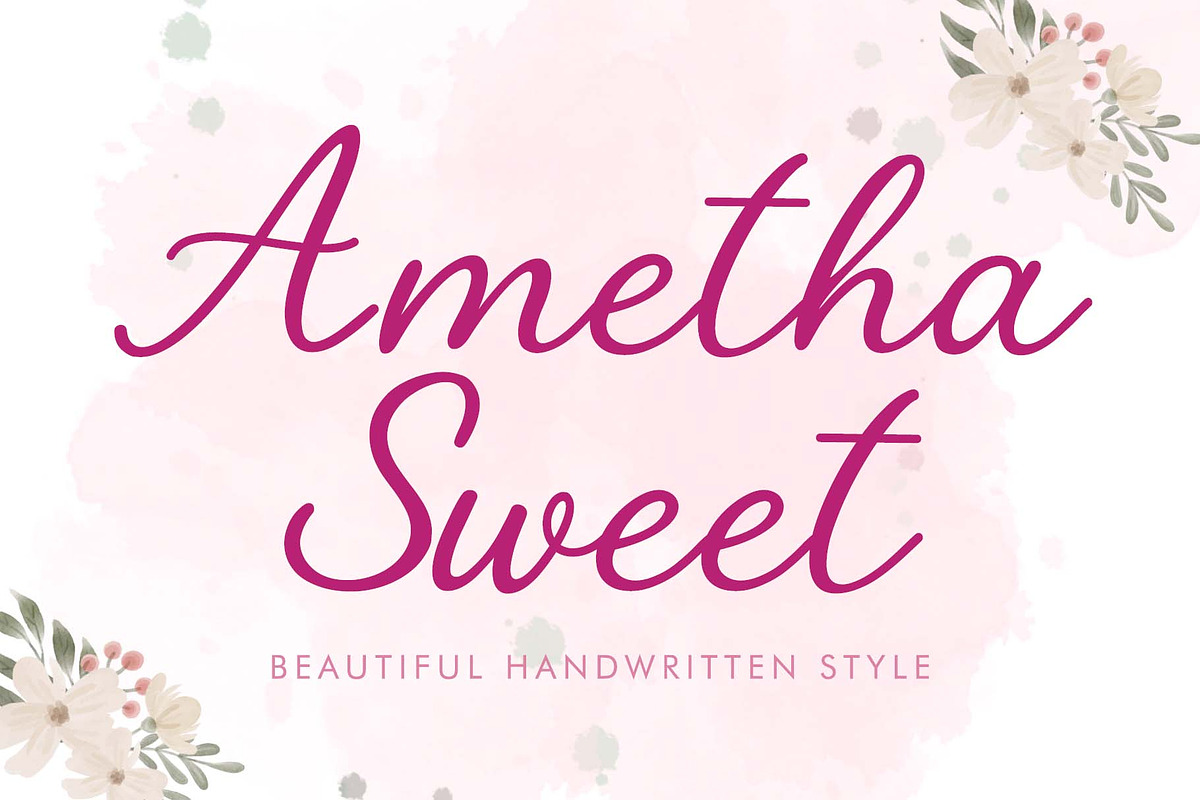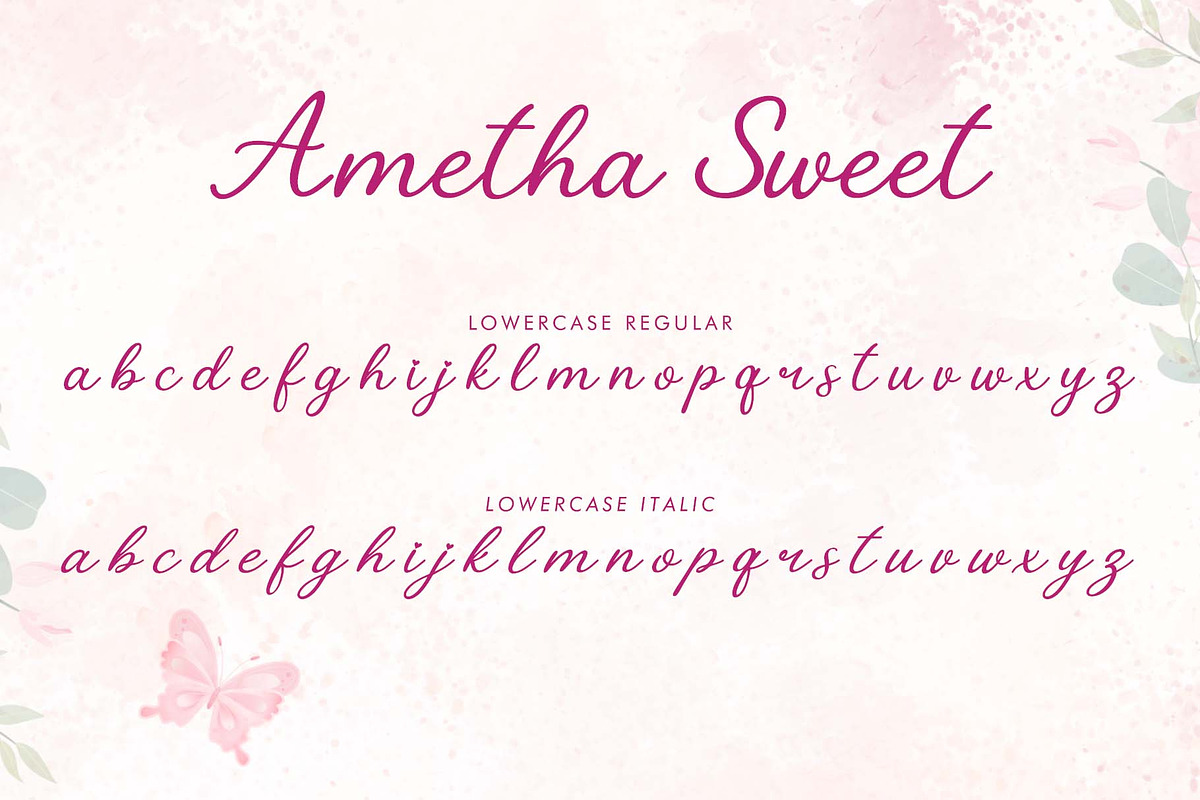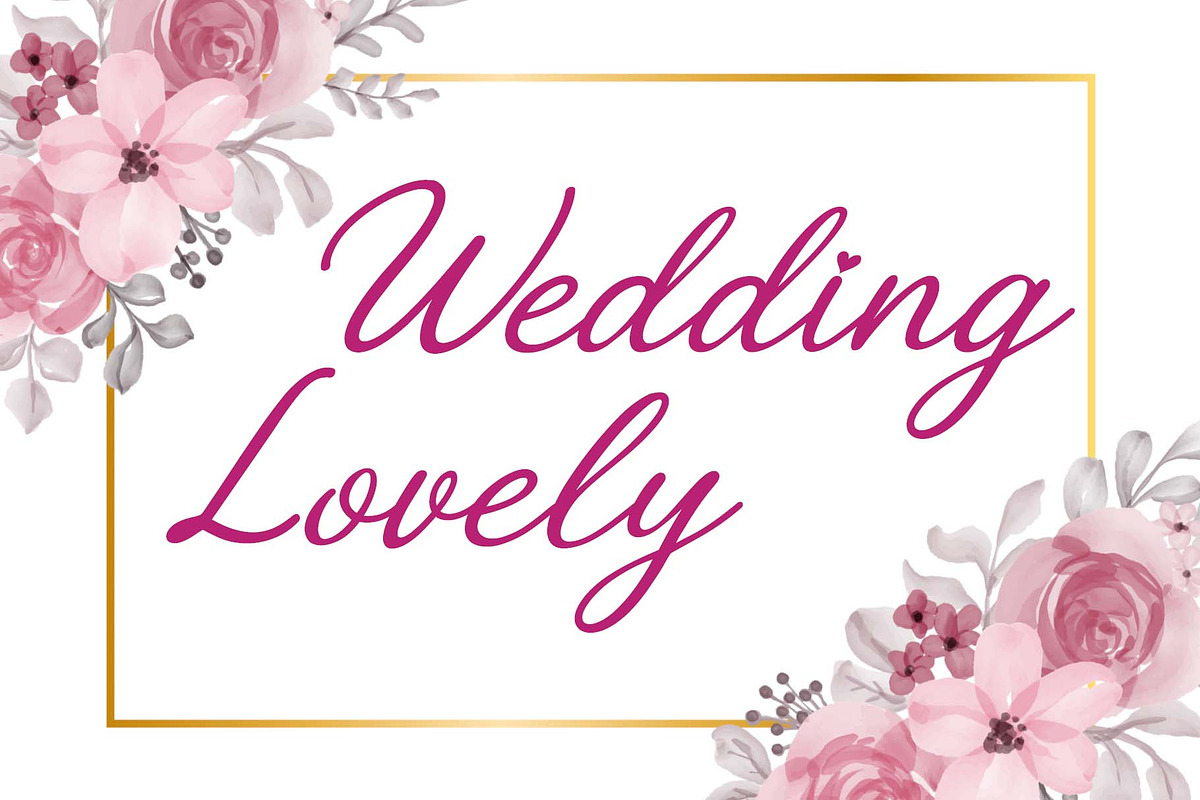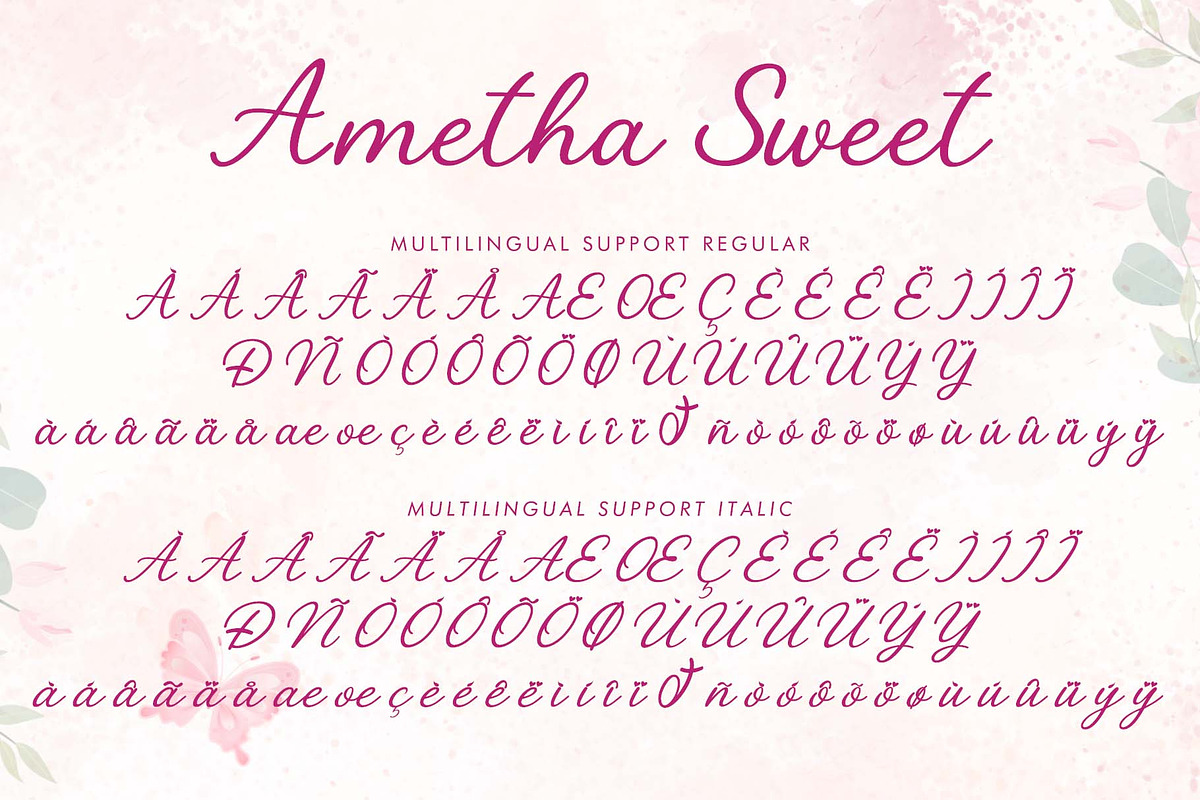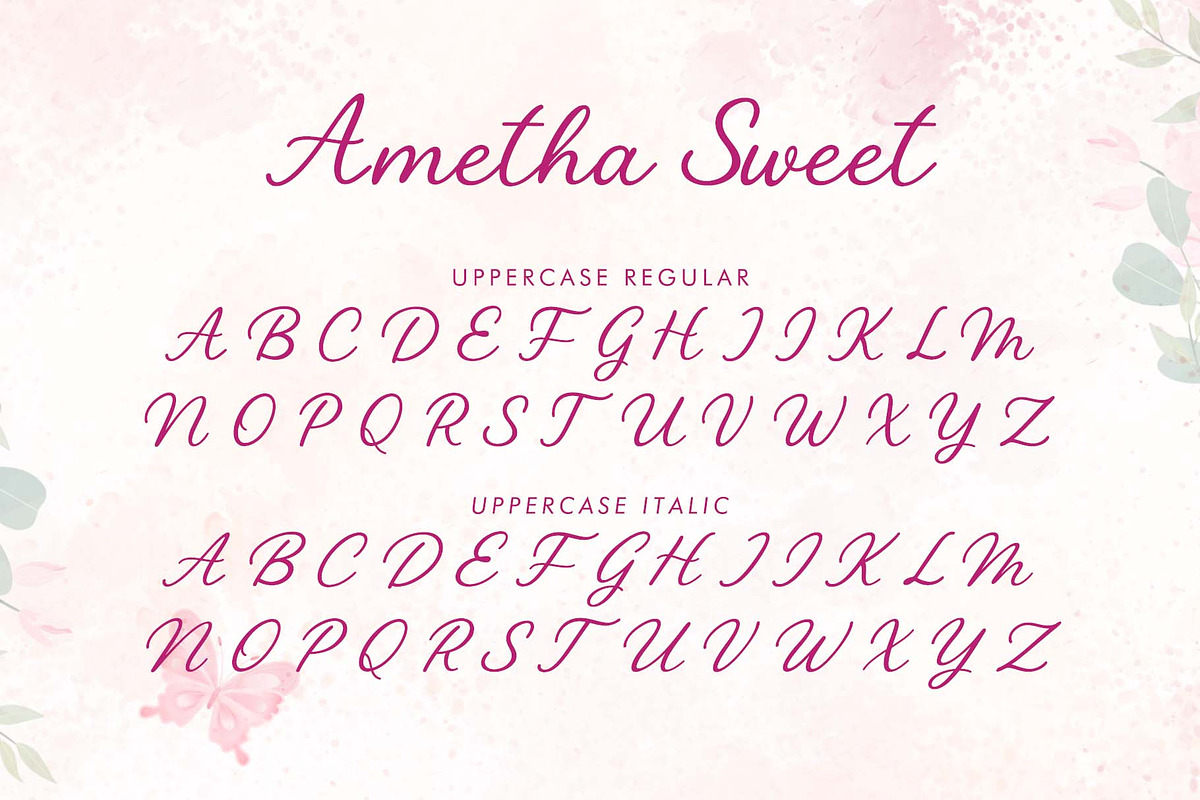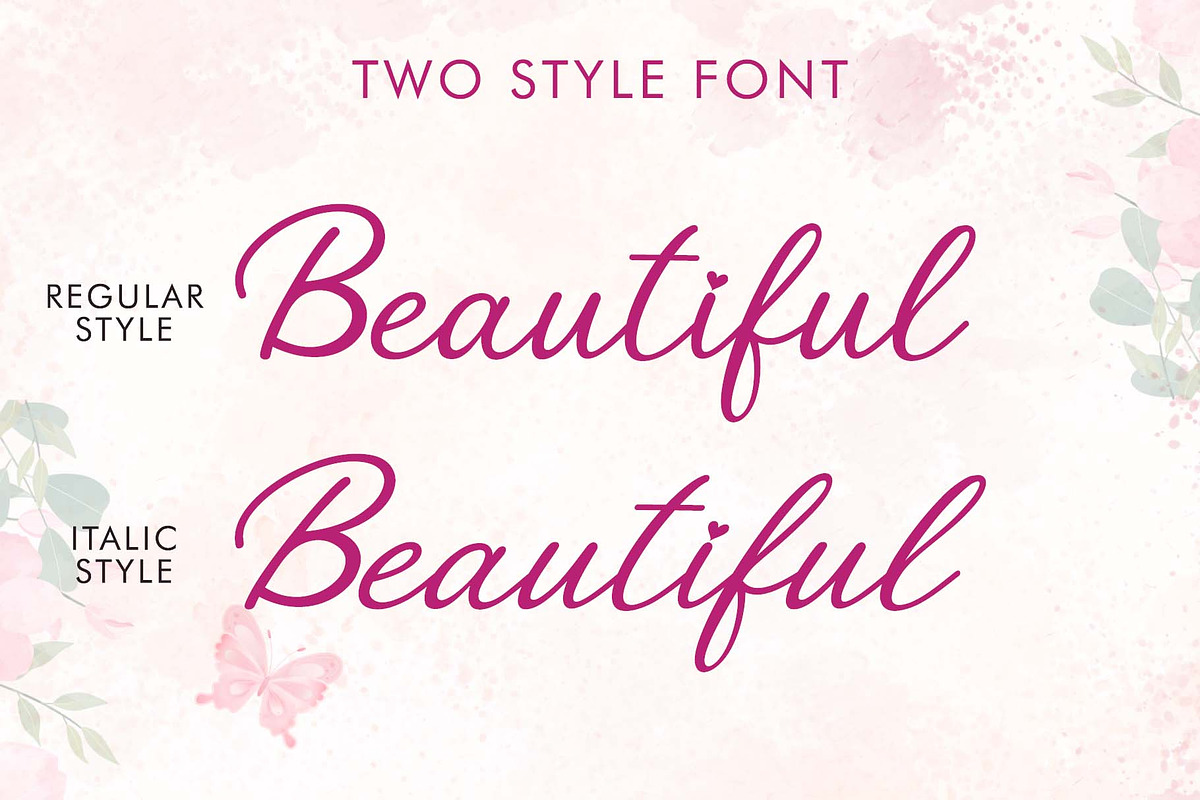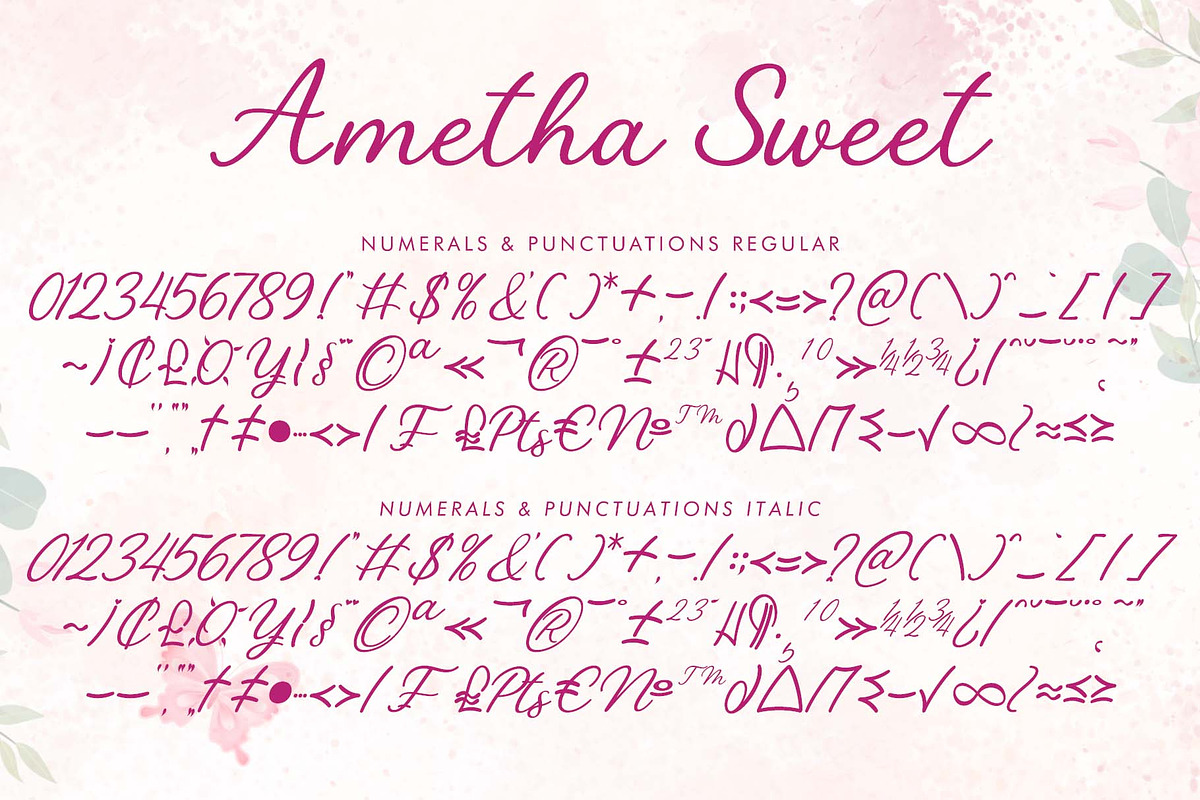
Ametha Sweet
"Ametha Sweet" is a beautiful and pretty handwritten font. It features uppercase and lowercase letters, numerals, punctuation, and multilingual support. It's perfect for weddings, Christmas, Valentine's Day, invitations, Thanksgiving, print, banners, branding, stickers, spring, summer, fall, and autumn, book titles, social media, YouTube, stickers, logos, and more.